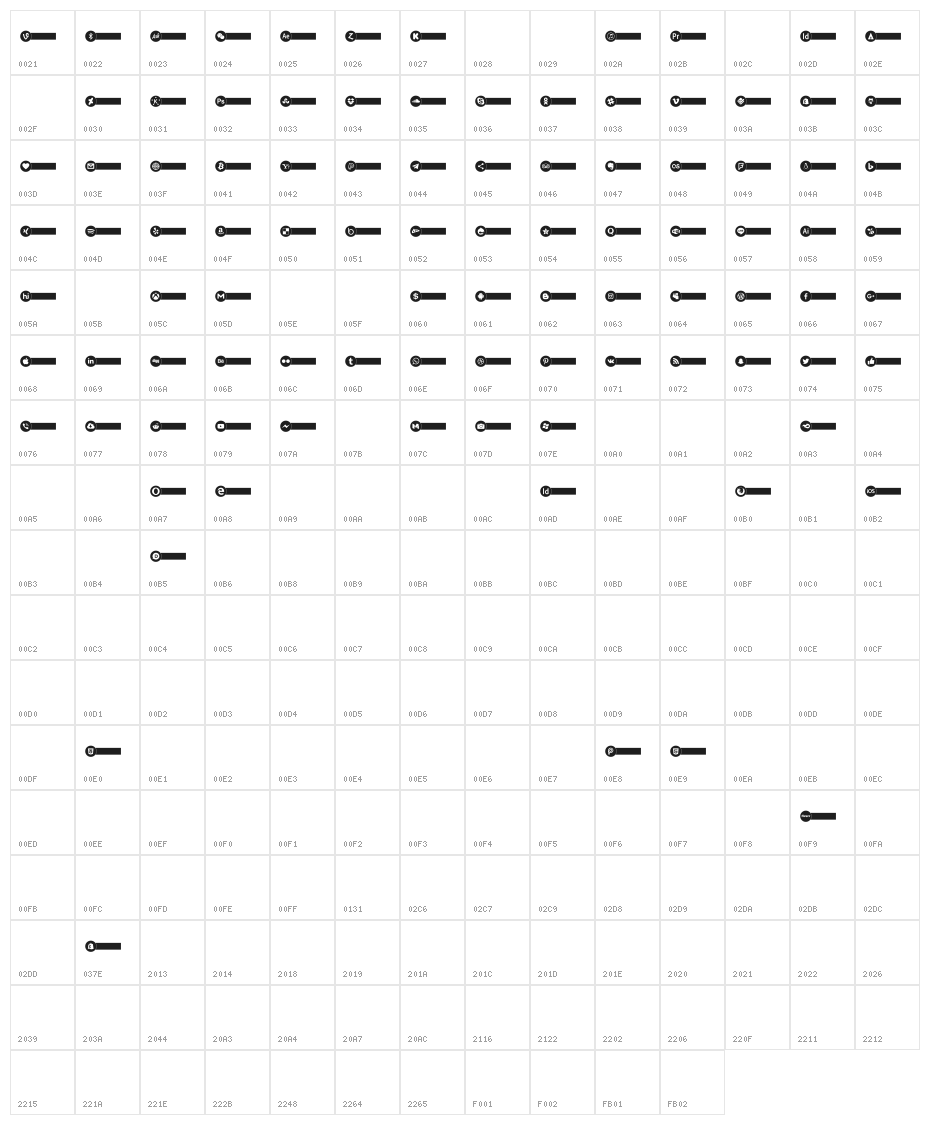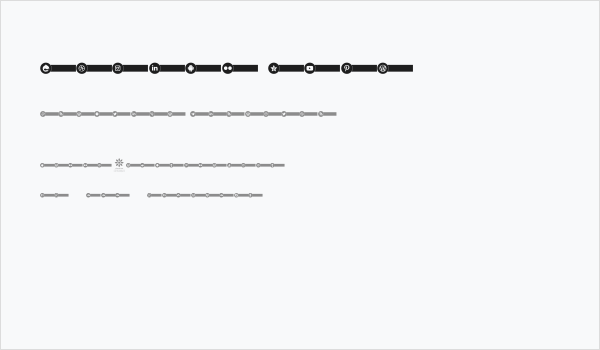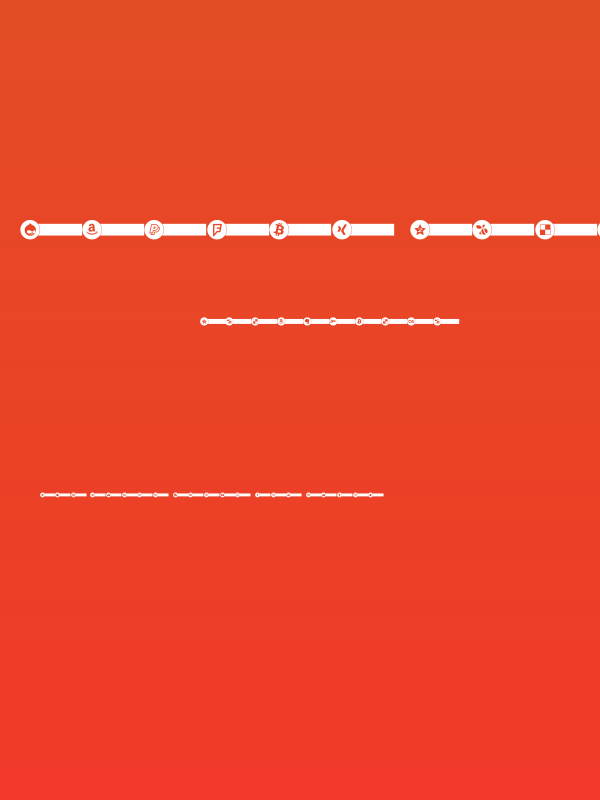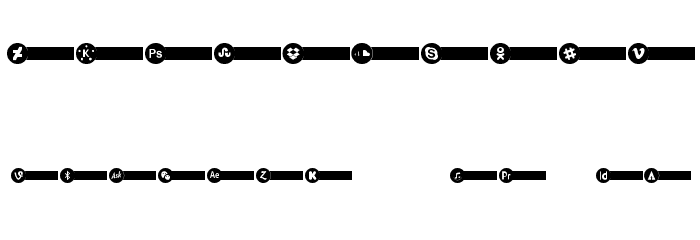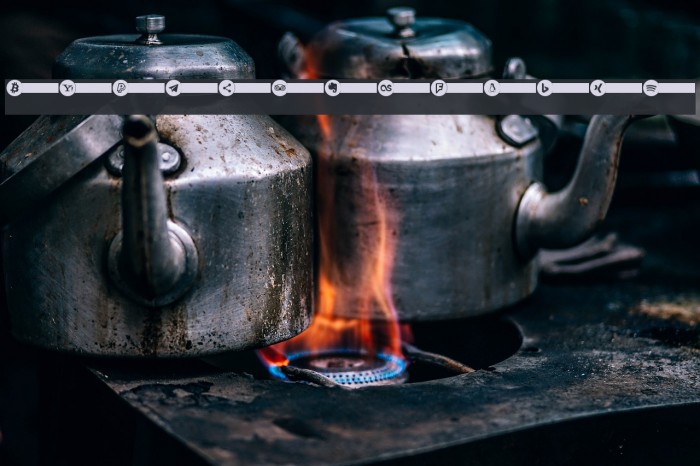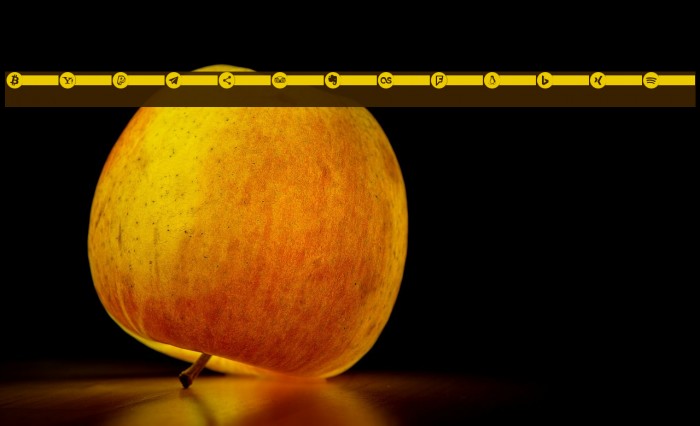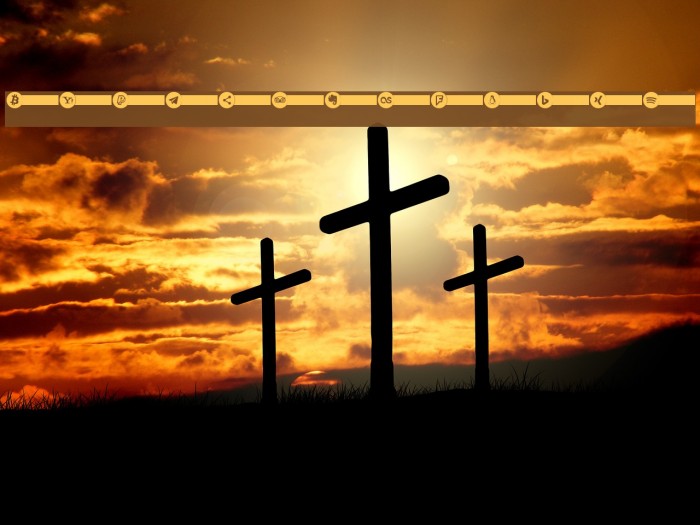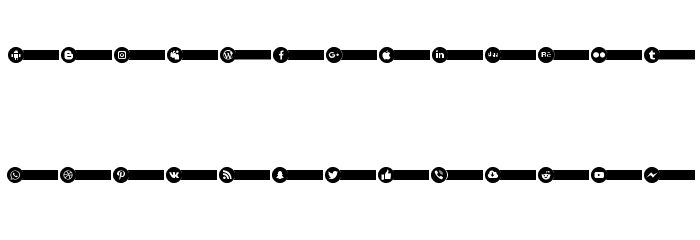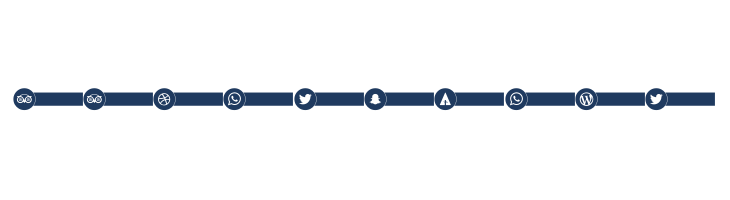
Social Type Font
This is a decorative font featuring a collection of social media and application icons enclosed within circular shapes. Each character represents a different platform or application, making it ideal for projects that require a visual representation of digital communication tools. The icons are uniformly styled, providing a cohesive look across the set. The design is modern and sleek, with a focus on clarity and recognizability of each icon. This font is particularly useful for digital interfaces, presentations, or any project that involves social media or technology themes.
| Use Case | Logos, Icons, Digital Interfaces |
| Proposed Projects | Ideal for digital interfaces, presentations, social media graphics, and technology-themed projects. |